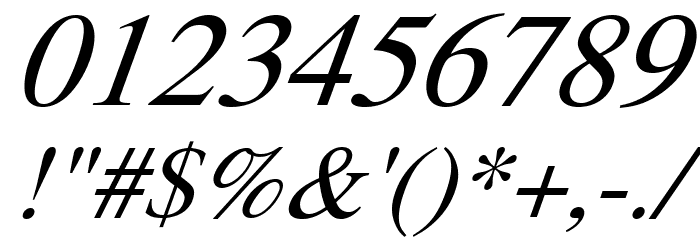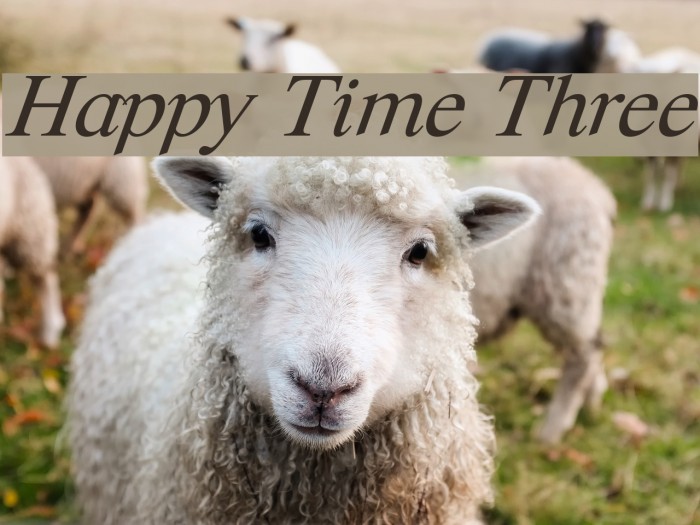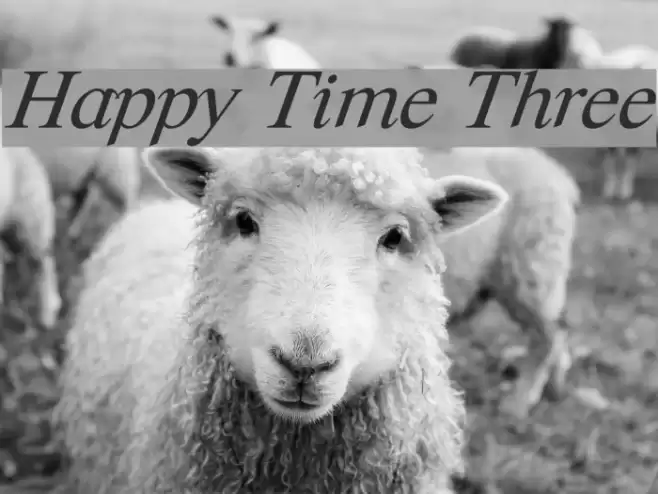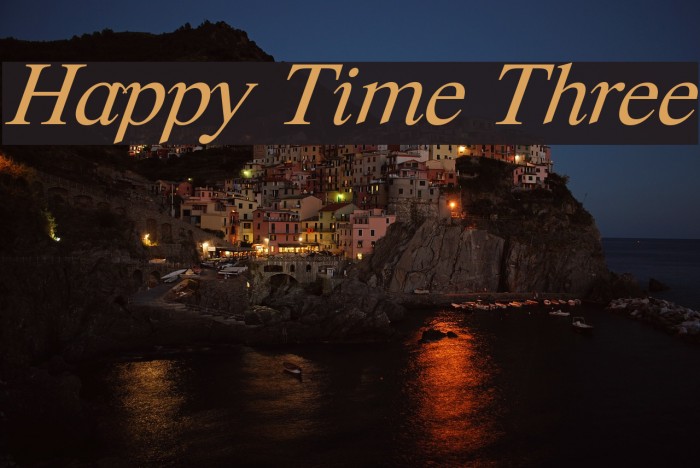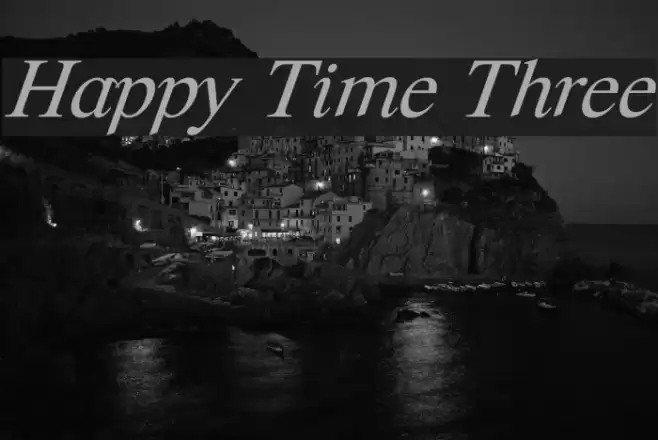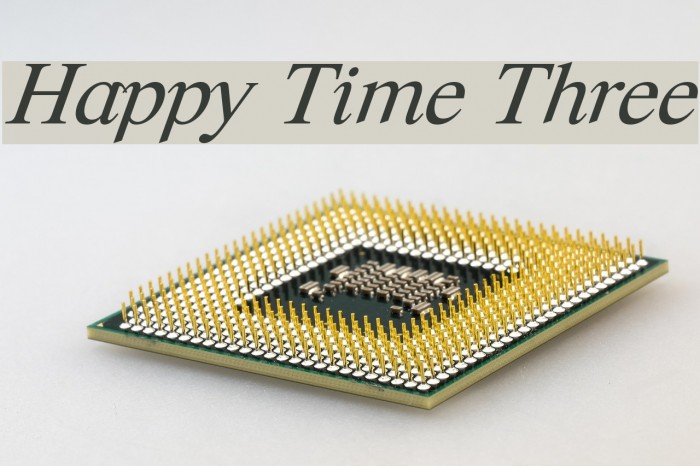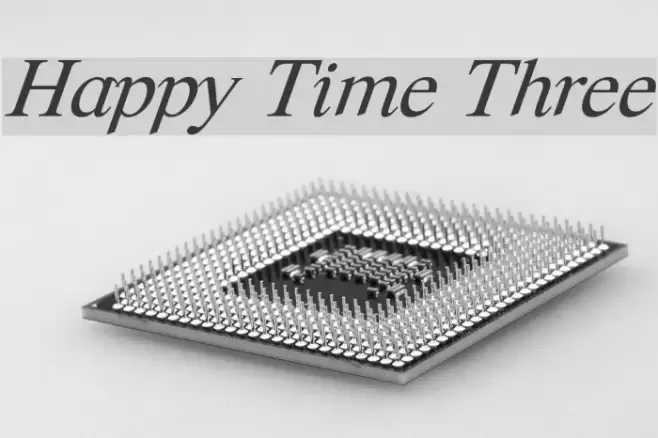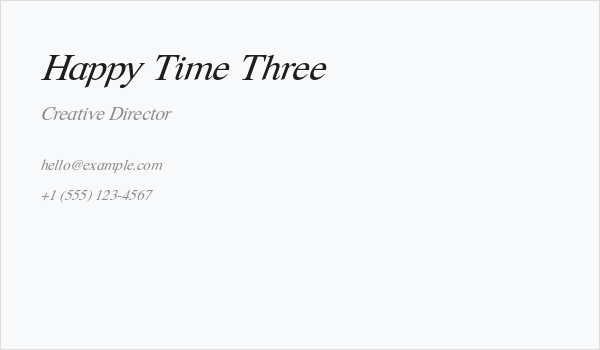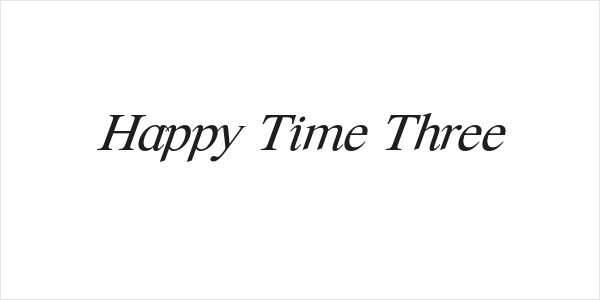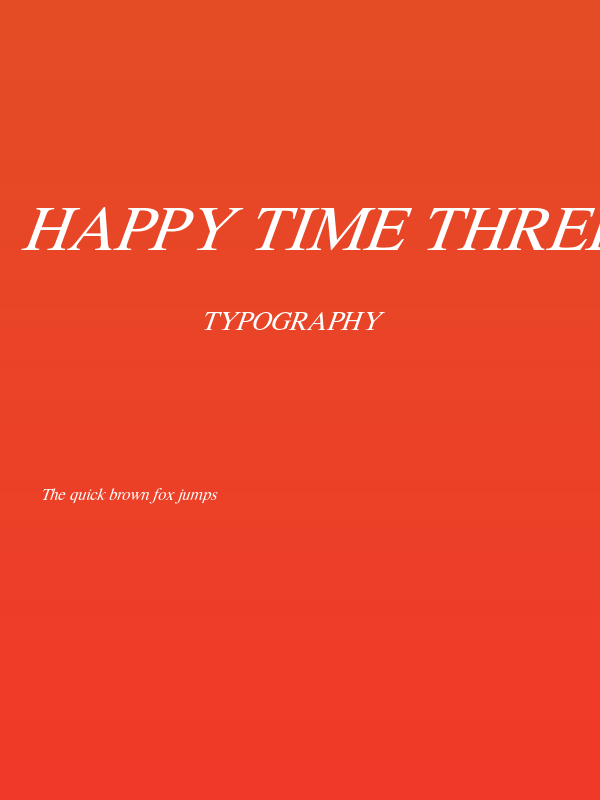
Happy Time Three Font
Happy Time Three Description
This elegant serif font features a classic italic style with smooth, flowing lines and a sophisticated appearance. The characters are slightly slanted, adding a sense of motion and grace. The uppercase letters are tall and stately, while the lowercase letters maintain a harmonious balance with their rounded forms. The numerals are consistent with the overall style, offering a refined look. Special characters are well-integrated, maintaining the font's cohesive aesthetic. The font's high contrast in stroke thickness enhances its readability and visual appeal, making it suitable for formal and stylish applications.